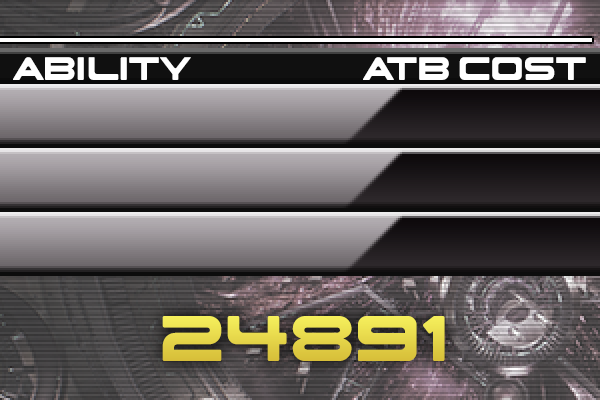
Font name: | Fabula Pulse |
Author: | Adam Alexander Croke |
Note by Adam Alexander Croke | |
This font family is inspired by two supplementary fonts seen within Final Fantasy XIII (a trademark of Square Enix). |